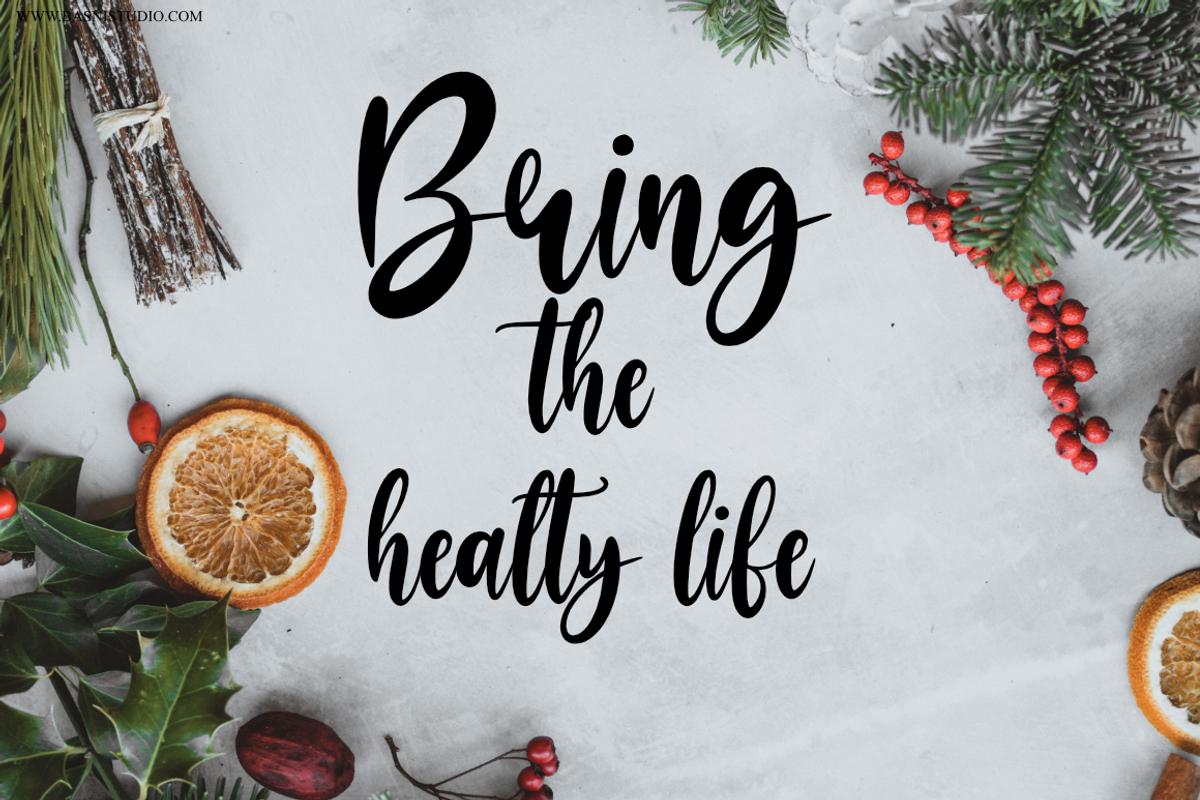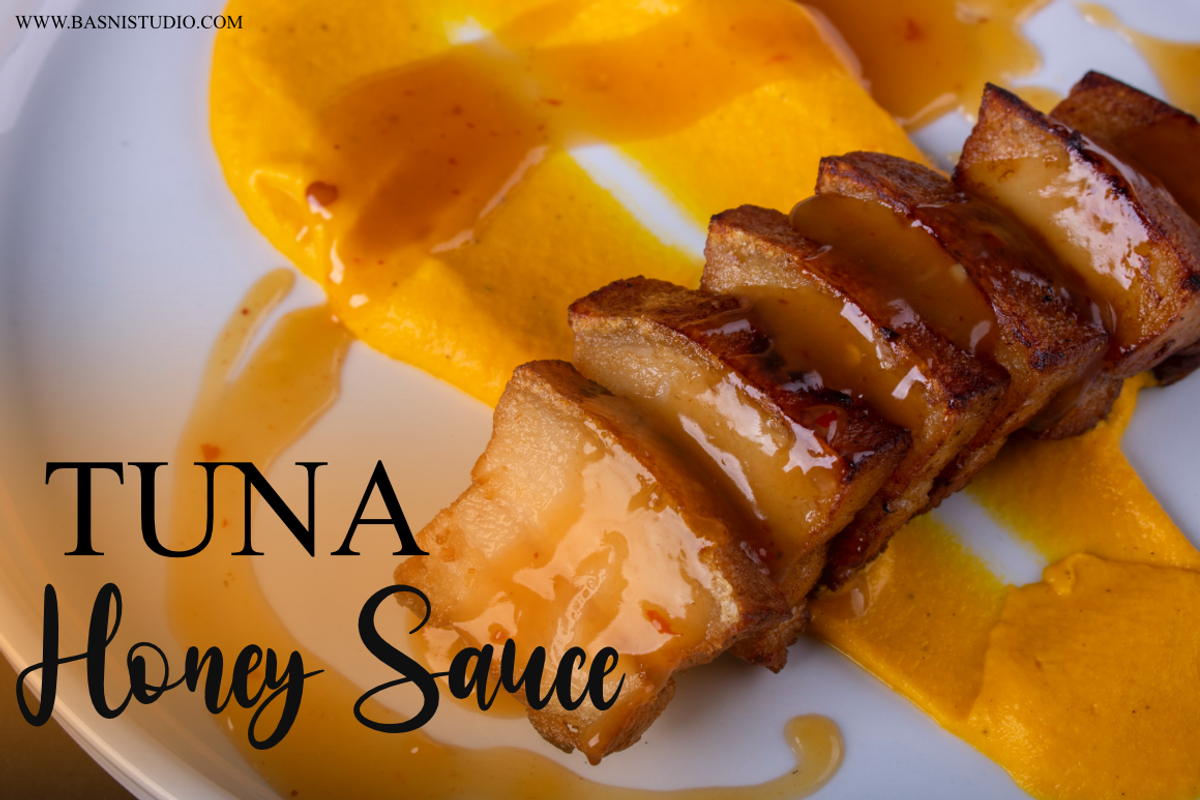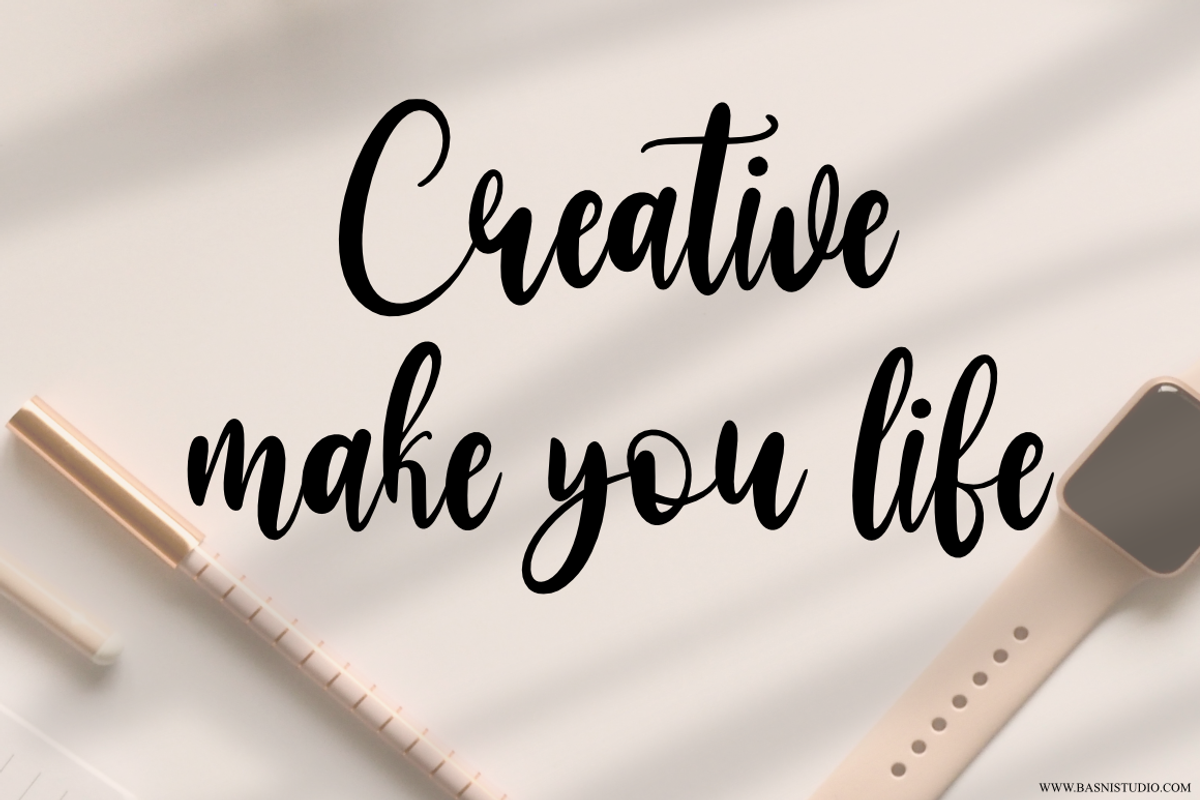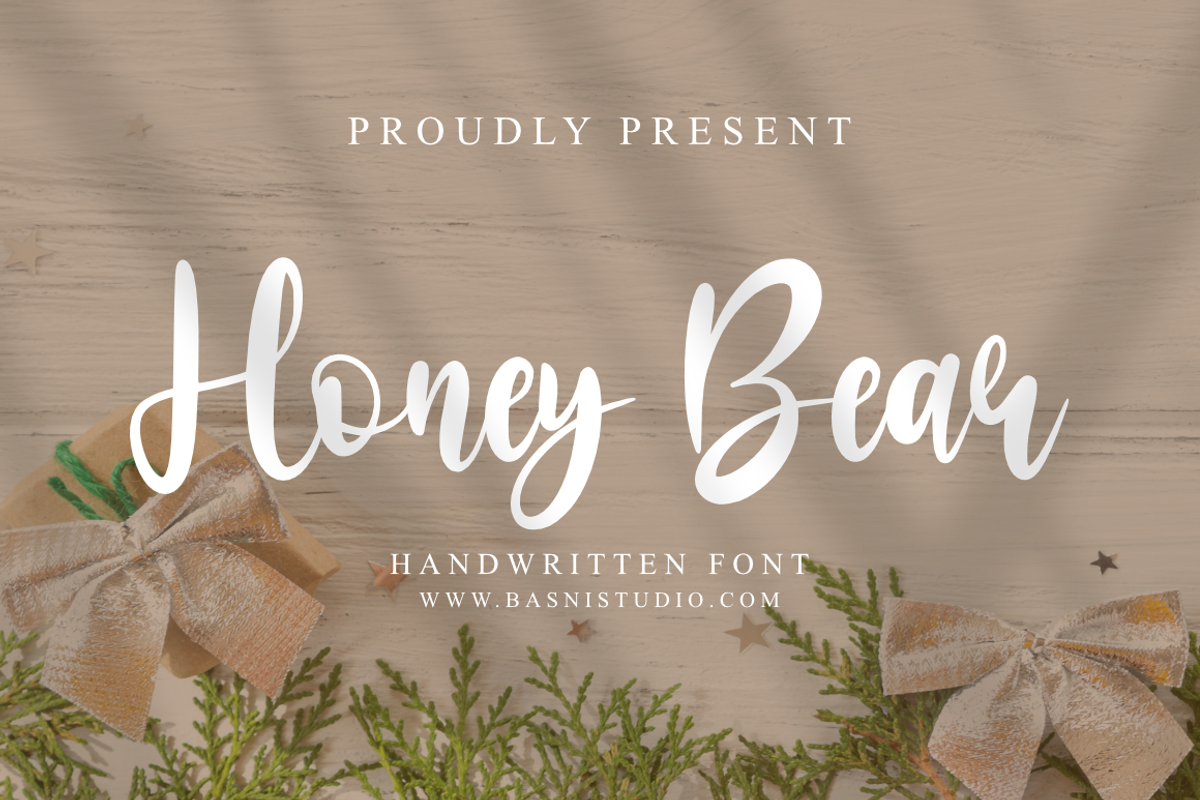
Honey Bear ~ Handwritten Font
Introducing Honey Bear, Handwritten font
Honey Bear looks naturally & Modern, made with details and precision, perfect for branding, websites, design invitation, and editorial designs. Includes all upper and lower case letters, multilingual support, punctuation, binding and initial and final swash. everything can be easily accessed using software that supports OpenType. What's include: